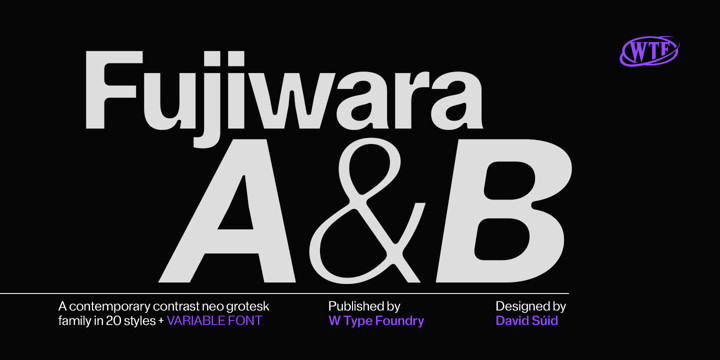
Fujiwara Font Family
Fujiwara Font FamilyFujiwara is a sharp contrast grotesk typeface, this element plus its aligned counterforms are Fujiwara’s main features. Fujiwara is also the result of studying the proportions of modern Swiss typefaces adding a personal touch to create a versatile and stylized font suitable for all kinds of compositions.
Fujiwara includes 20 styles. The slanted versions were very carefully drawn and corrected, it also has 2 variable options and many open type features like fractions, special numbers, tabular lining numbers, case sensitive forms, standard and discretionary ligatures, emojis, arrows, carefully aligned case-sensitive accents, stylistic alternates, and more.